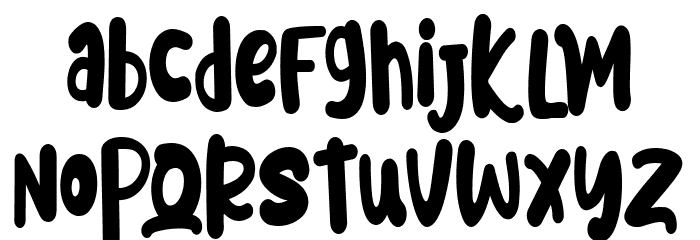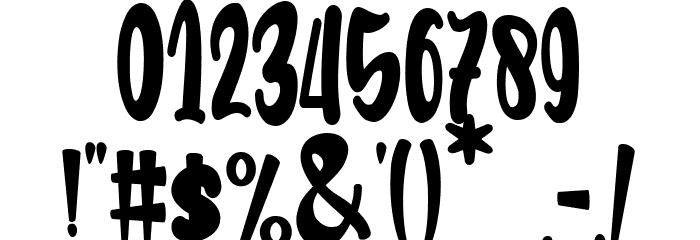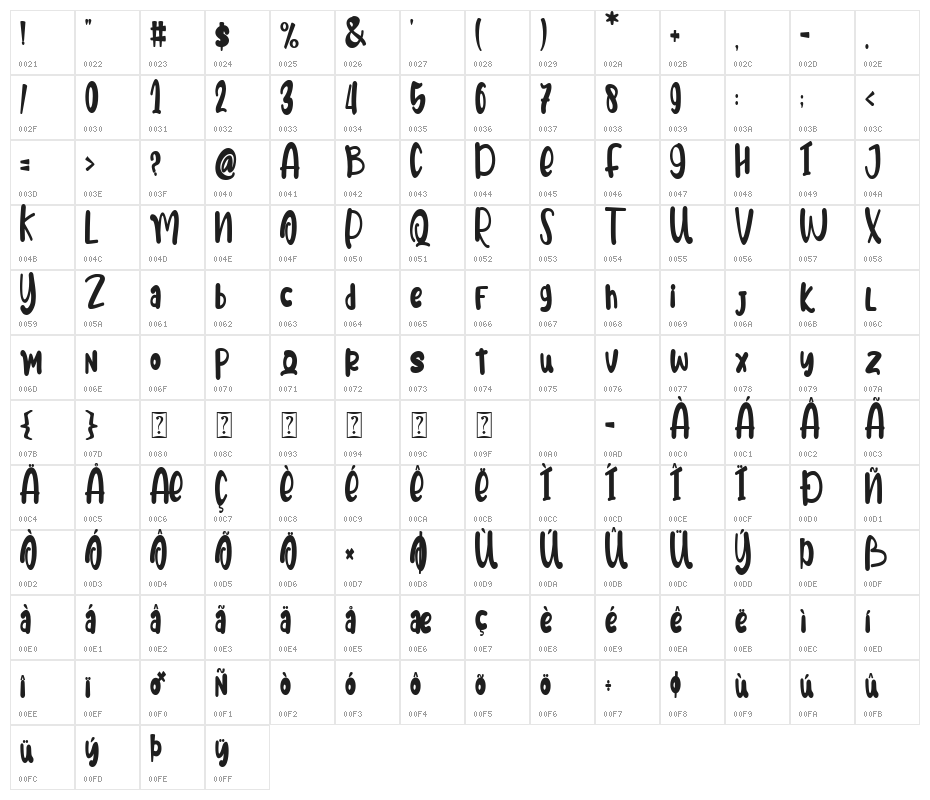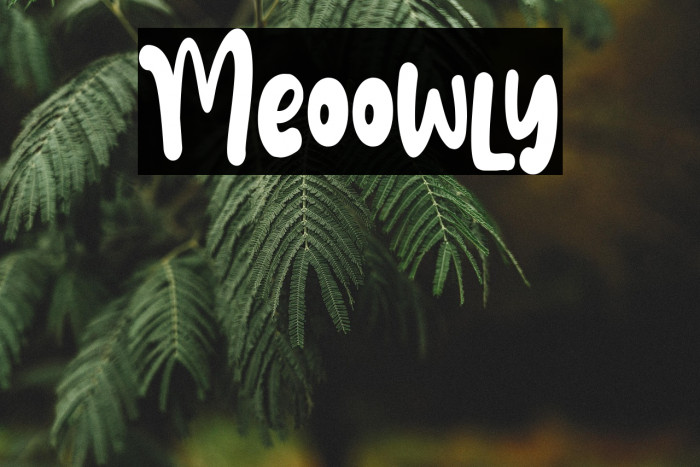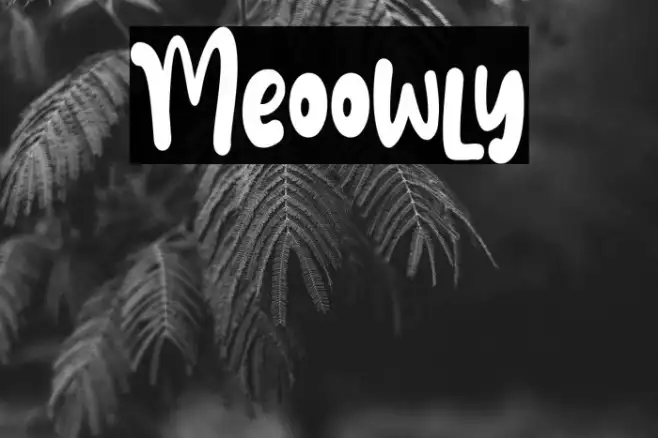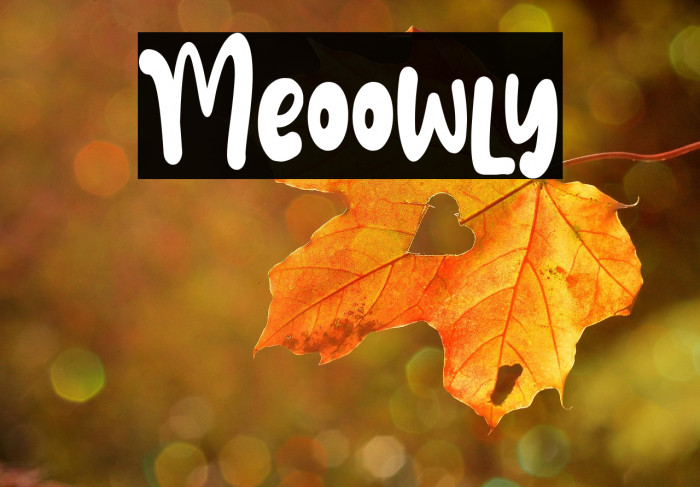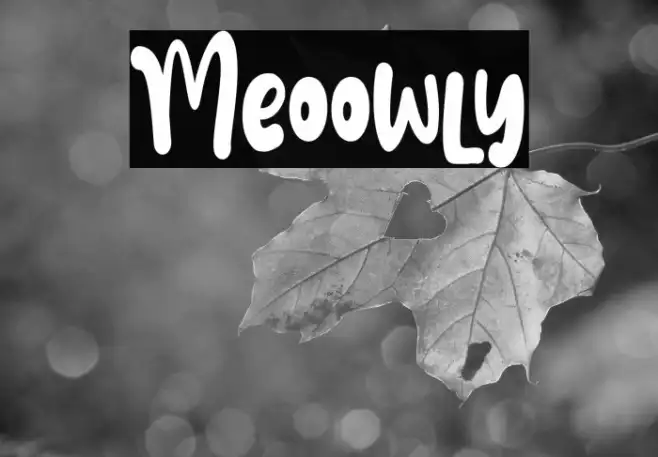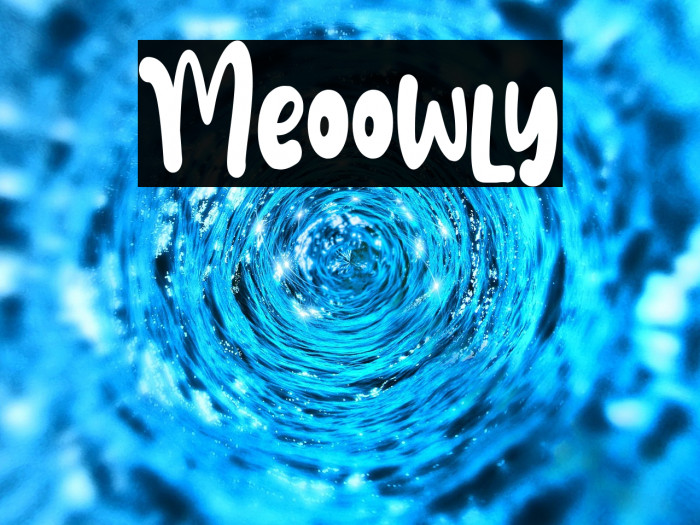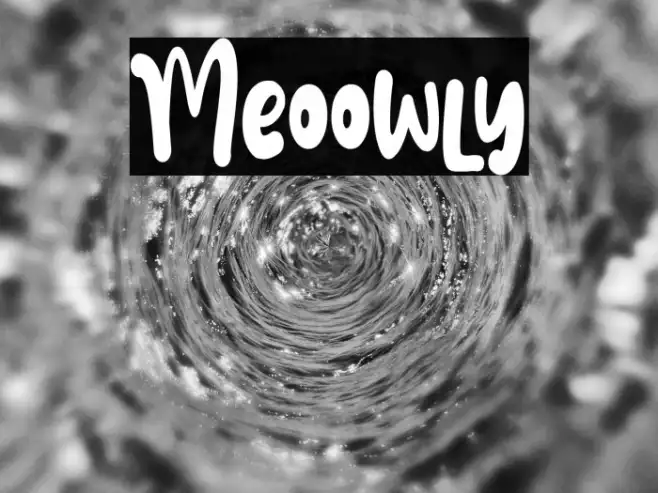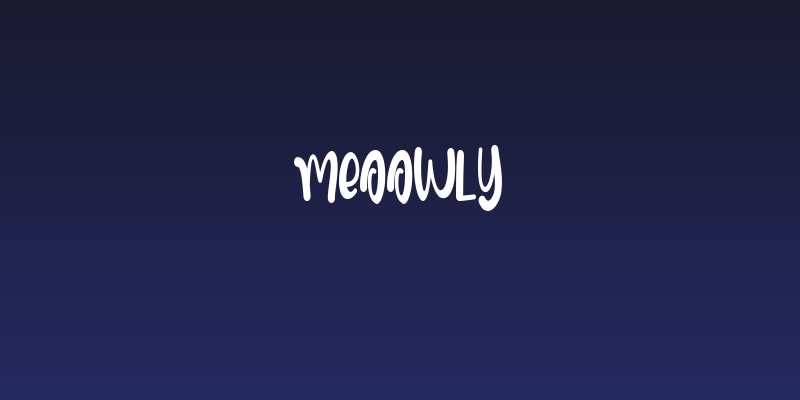
Meoowly Font
This playful and bold font features a handwritten style with a lively and energetic appearance. The letters are thick and rounded, giving a friendly and approachable feel. The uppercase and lowercase letters maintain a consistent style, with slight variations in stroke width that add to its charm. The numbers and special characters are equally bold and expressive, making them stand out. This font is perfect for projects that require a fun and informal touch, such as children's books, party invitations, or playful branding.
A bold, playful handwritten font with a lively and energetic style.
- Proposed Projects: Ideal for children's books, party invitations, playful branding, and casual posters.
- Overall Style: Playful